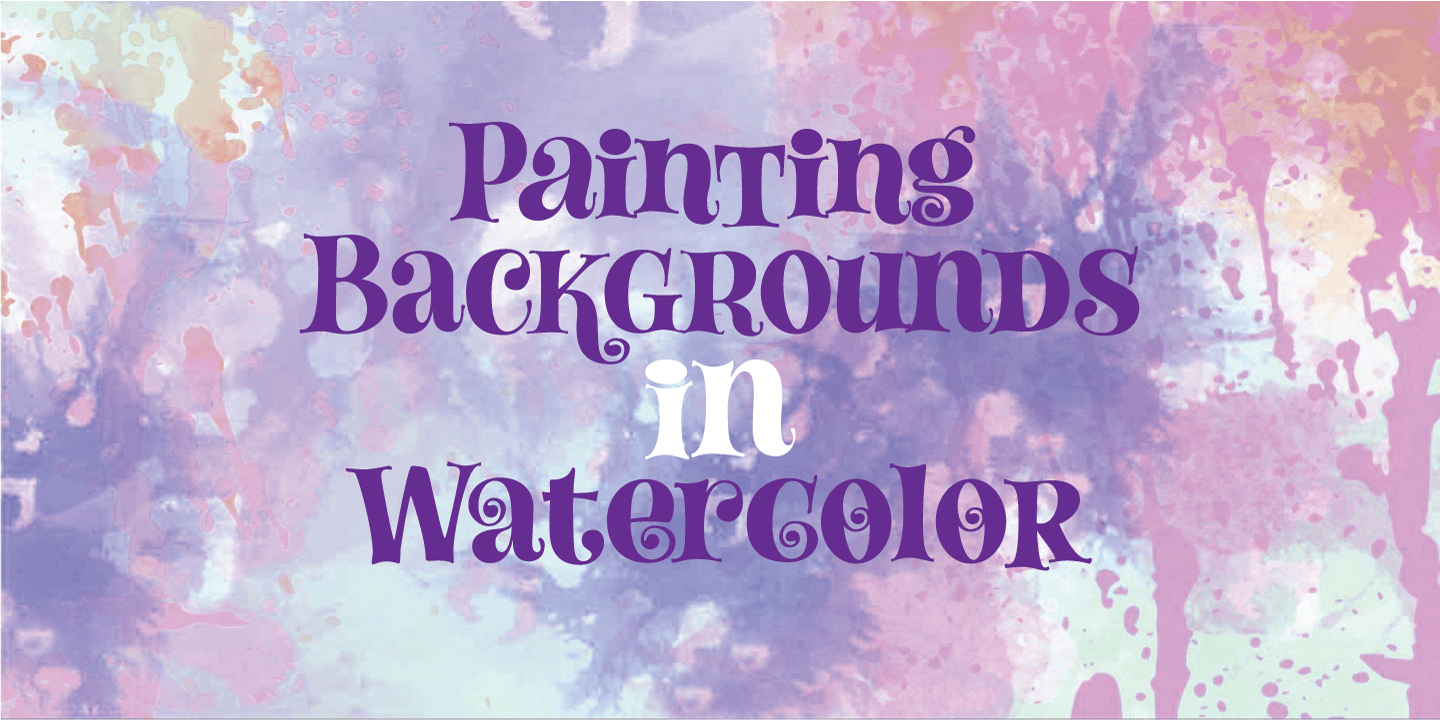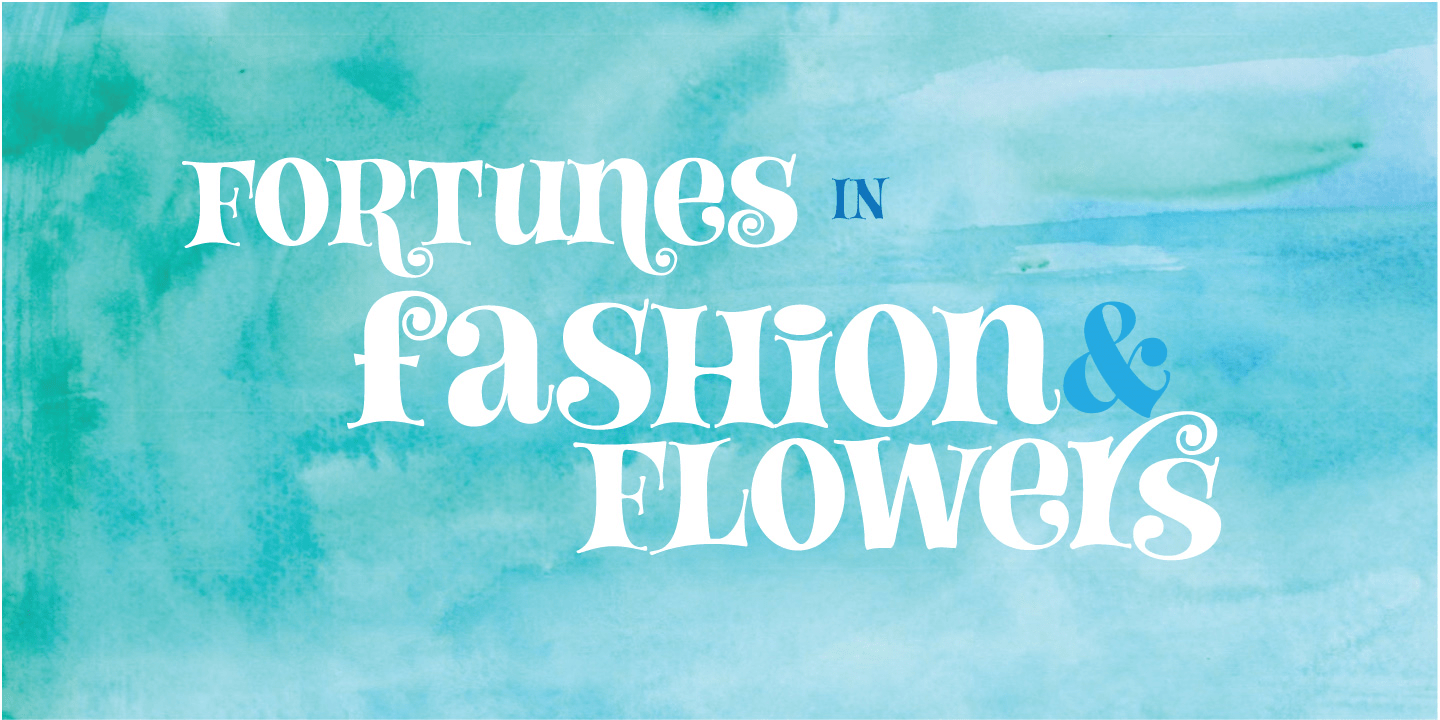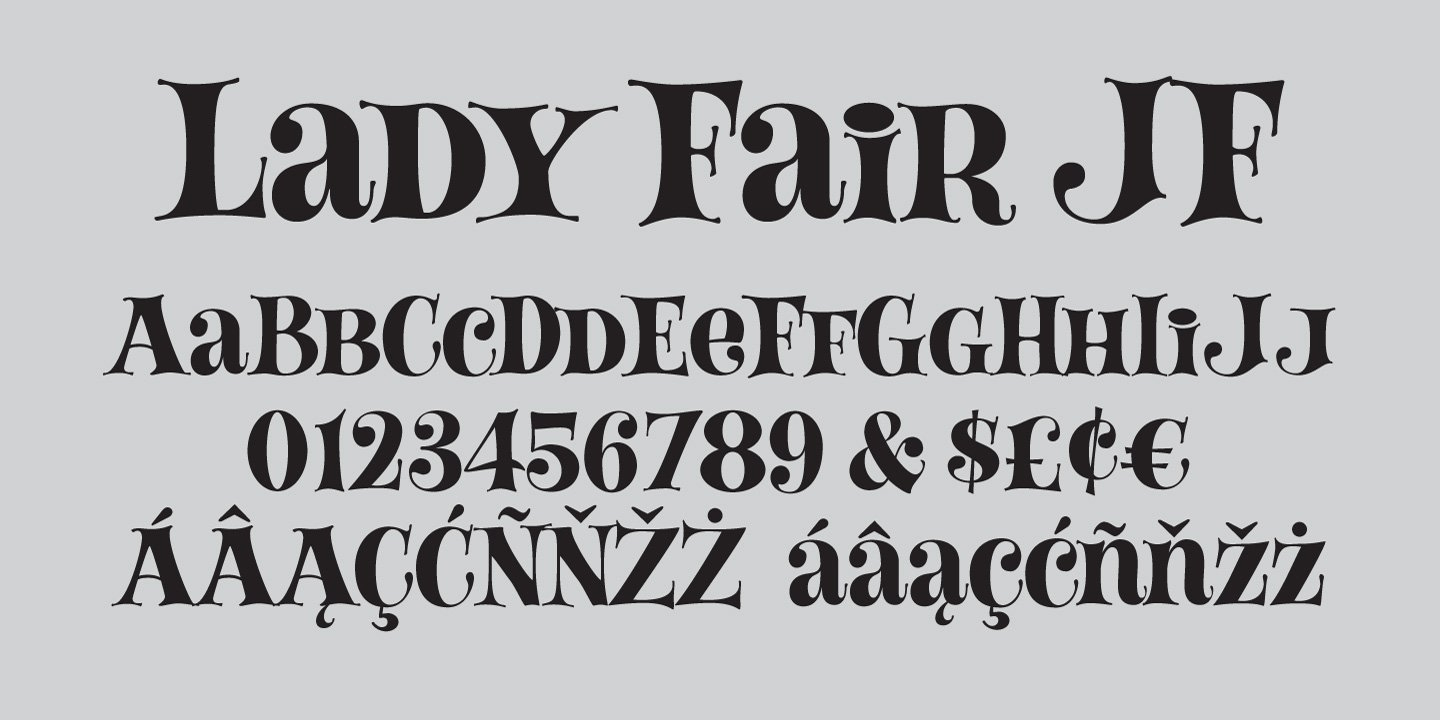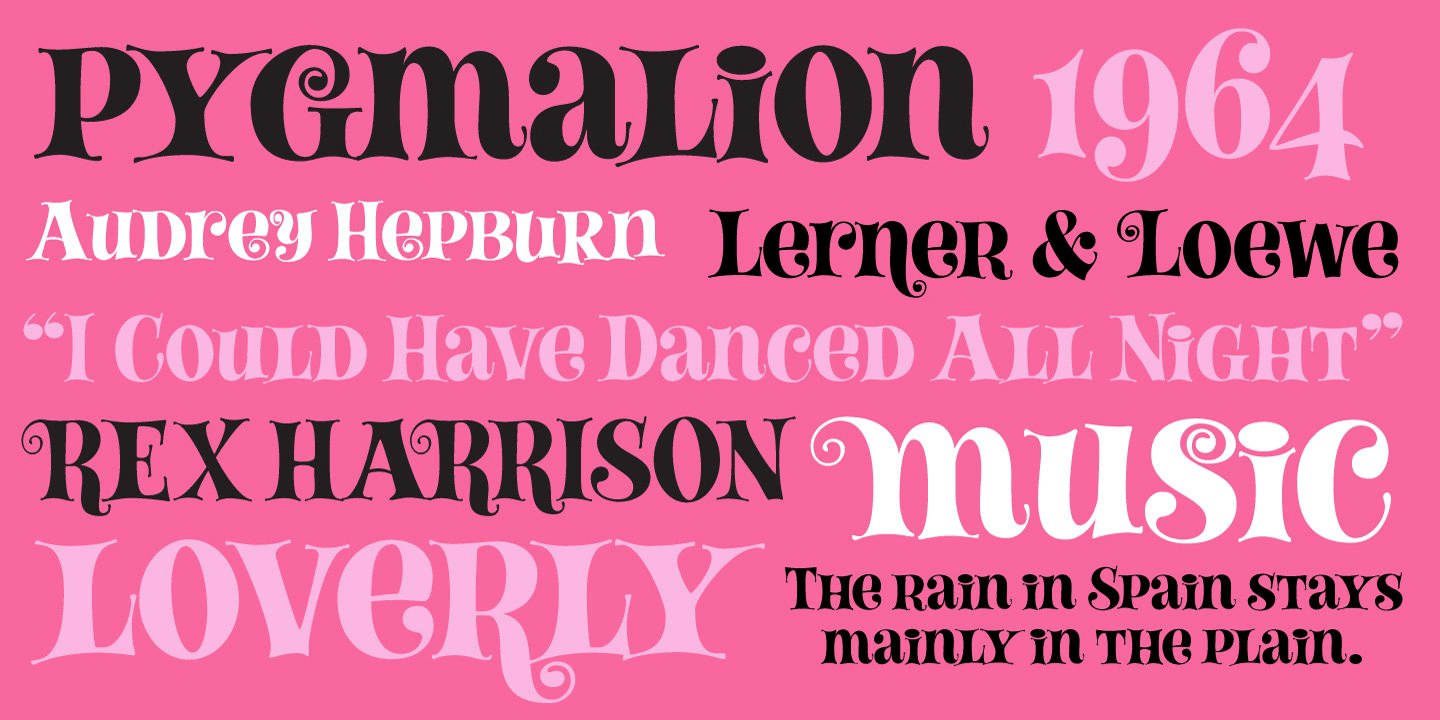
Lady Fair
Font Family by Jukebox
Lady Fair is an original Jukebox design inspired by the hand-lettered 1960s movie poster for "My Fair Lady" starring Audrey Hepburn. Lighthearted and upbeat, Lady Fair reflects the typographic styles of the 1960s and seems to allude to a more innocent time. The font contains a wide range of alternates found under the Swash, Stylistic Alternates and Titling features, as well as some extra Discretionary Ligatures to fill out its typographic range. With curls and quirky serifs, this font will look "loverly" in your projects!